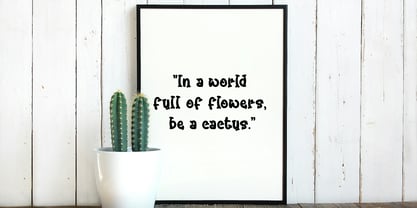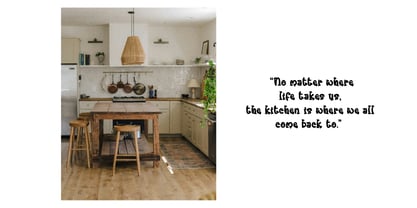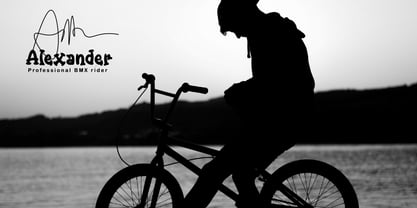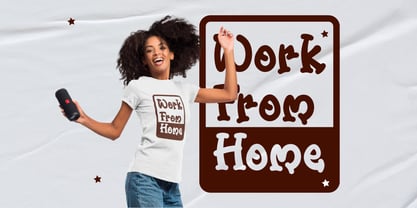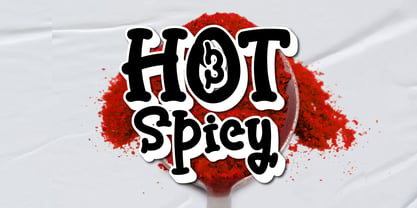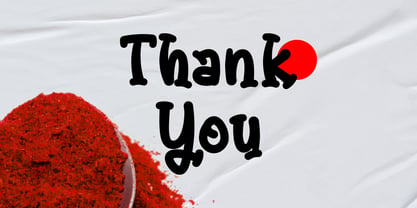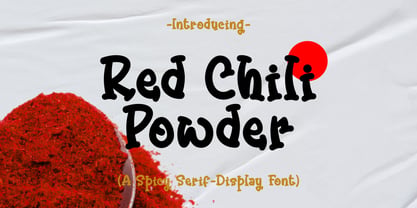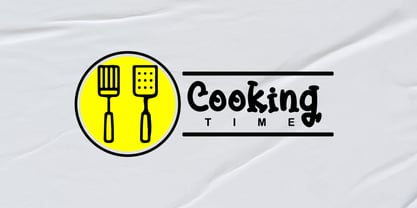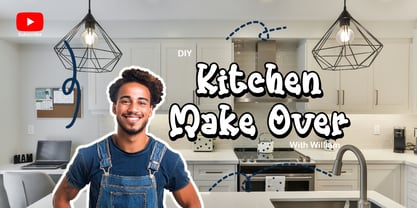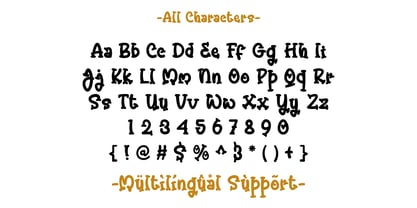
Red Chili powder
by Patlot Digital Studio
The Red Chili powder Font Family was designed by Gugun Gunawan and published by Patlot Digital Studio. Red Chili powder contains 1 styles. More about this family
Meet Red Chili Powder, a handwritten serif font charming enough to steal your heart. Filled with adorable qualities, this font easily enhances a variety of design formats. Whether it’s a printed t-shirt, a captivating social media post, a thoughtful logo, or an attention-grabbing YouTube thumbnail – Red Chili Powder brings a refreshing touch. Integrating it into your font collection means embracing a whole new level of creativity. Without a doubt, it’s ready to quickly become your favorite font.
Designers: Gugun Gunawan
Foundry: Patlot Digital Studio